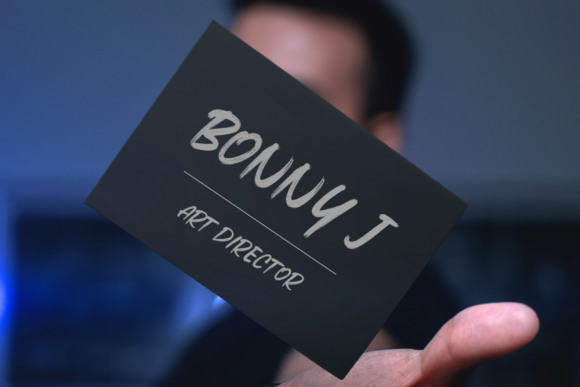
Black Monday Font: A Cool and Versatile Display Font
Are you looking for a font that can elevate your designs and make them stand out from the crowd? Look no further than the Black Monday font. This cool, paint-brushed display font is perfect for a wide range of topics and can be an incredible asset to your font library.
What is Black Monday Font?
Black Monday font is a unique and stylish display font that features a paint-brushed design. The font has a rugged, distressed look that gives it a bold and eye-catching appearance. It’s perfect for designers who want to add a touch of personality and style to their work.
Key Features of Black Monday Font
- Unique Design: The Black Monday font features a one-of-a-kind paint-brushed design that sets it apart from other fonts.
- Versatility: This font can be used for a wide range of topics and projects, from posters and flyers to social media graphics and website headers.
- Easy to Read: Despite its bold and distressed design, the Black Monday font is surprisingly easy to read, making it perfect for headlines and titles.
- High-Quality: The font is designed with high-quality and precision, ensuring that it looks great in any size or resolution.
What Makes Black Monday Font So Cool?
So, what makes the Black Monday font so cool? For starters, its unique paint-brushed design gives it a bold and eye-catching appearance that’s sure to grab attention. Additionally, the font’s versatility makes it perfect for a wide range of projects and topics. Whether you’re designing a poster, flyer, or social media graphic, the Black Monday font is sure to elevate your design and make it stand out.
How to Use Black Monday Font
Using the Black Monday font is easy. Here are a few tips to get you started:
- Use it as a Headline Font: The Black Monday font is perfect for headlines and titles. Use it to add a bold and eye-catching touch to your designs.
- Experiment with Different Sizes: The Black Monday font looks great in a variety of sizes. Experiment with different sizes to find the one that works best for your design.
- Pair it with Other Fonts: The Black Monday font pairs well with a variety of other fonts. Try pairing it with a clean and simple font to create a bold and eye-catching contrast.
Benefits of Using Black Monday Font
There are many benefits to using the Black Monday font in your designs. Here are a few:
- Instant Recognition: The Black Monday font is sure to grab attention and get noticed. Its bold and eye-catching design makes it perfect for headlines and titles.
- Versatility: The Black Monday font can be used for a wide range of projects and topics. Its versatility makes it a great addition to any font library.
- Unique Design: The Black Monday font features a unique and stylish design that sets it apart from other fonts.
Who Can Use Black Monday Font?
The Black Monday font is perfect for a wide range of designers and projects. Here are a few examples:
- Graphic Designers: Graphic designers can use the Black Monday font to add a bold and eye-catching touch to their designs.
- Advertising Agencies: Advertising agencies can use the Black Monday font to create bold and attention-grabbing ads.
- Social Media Managers: Social media managers can use the Black Monday font to create bold and eye-catching social media graphics.
In conclusion, the Black Monday font is a cool and versatile display font that’s perfect for a wide range of projects and topics. Its unique paint-brushed design and bold appearance make it sure to grab attention and elevate any design. Whether you’re a graphic designer, advertising agency, or social media manager, the Black Monday font is a great addition to any font library.
- What is the Black Monday font? The Black Monday font is a cool and versatile display font featuring a paint-brushed design.
- What makes the Black Monday font so cool? The Black Monday font is cool because of its unique design, versatility, and bold appearance.
- How can I use the Black Monday font? You can use the Black Monday font as a headline font, experiment with different sizes, and pair it with other fonts.